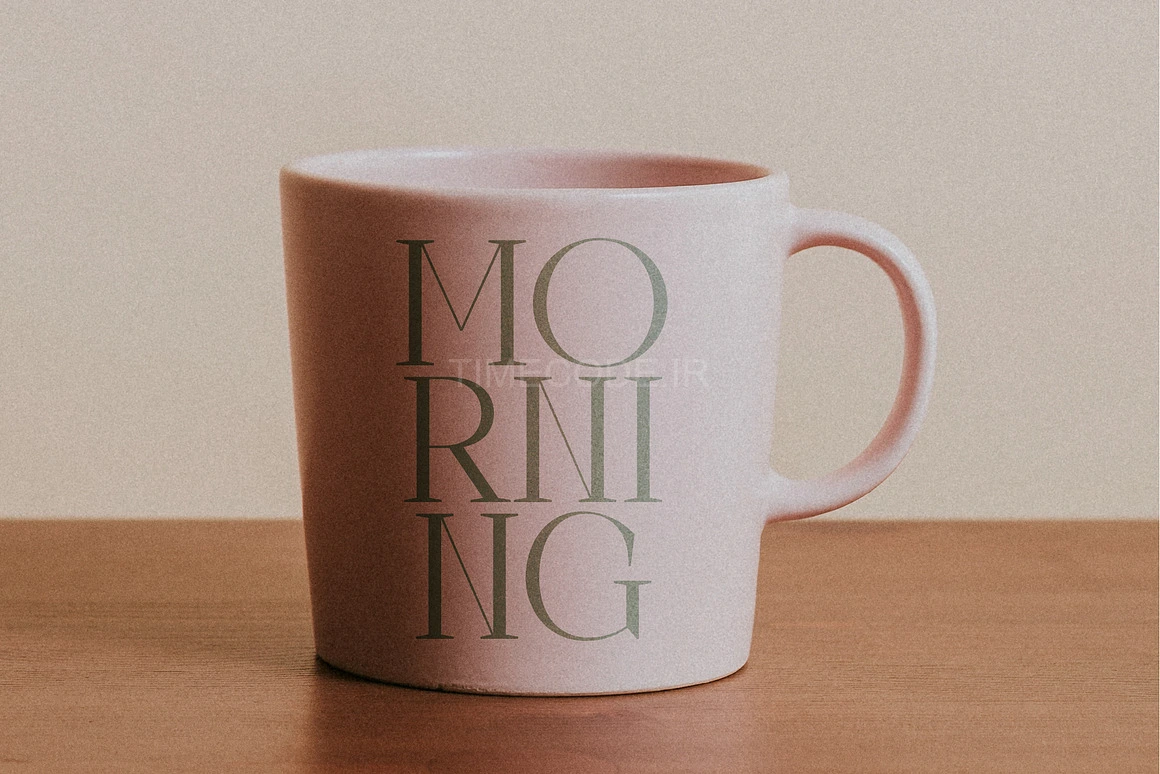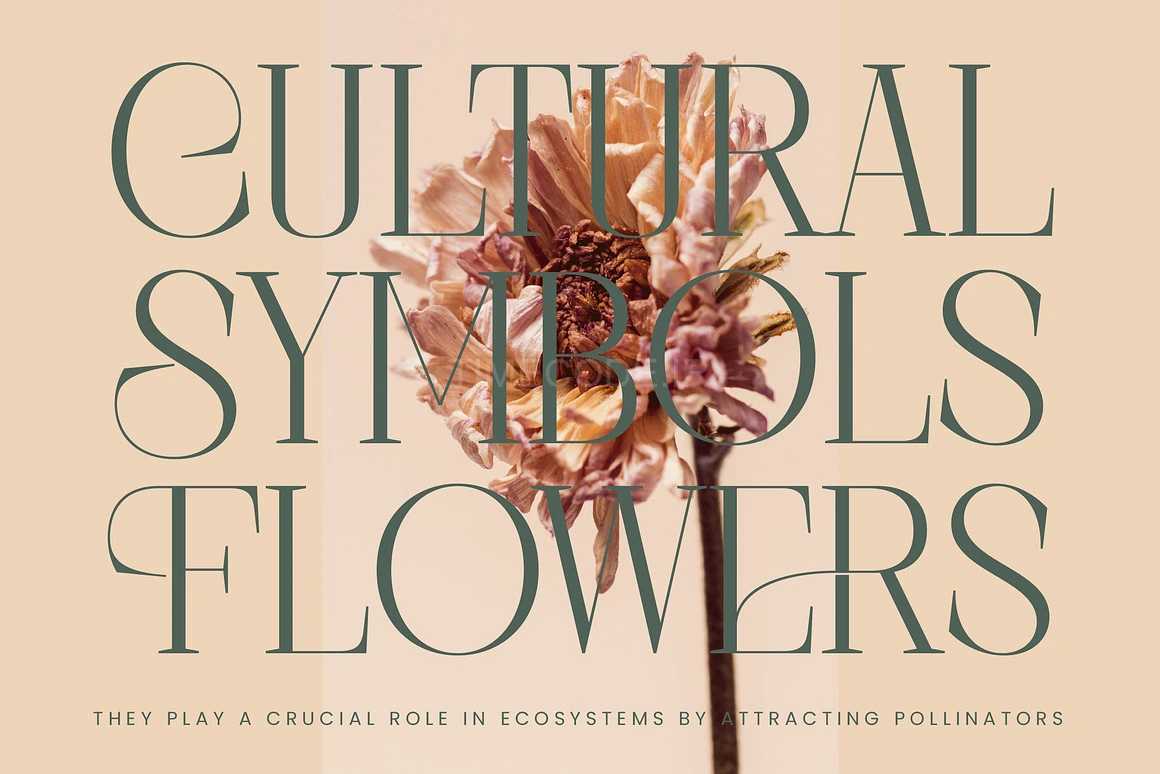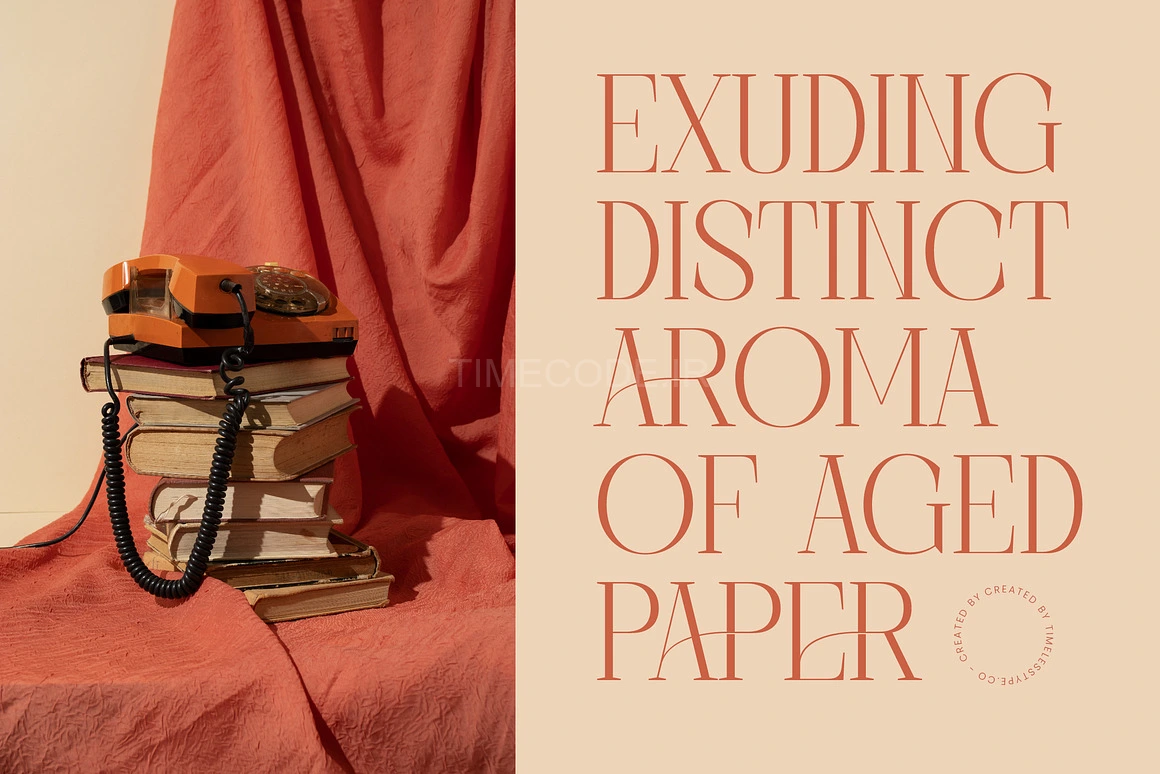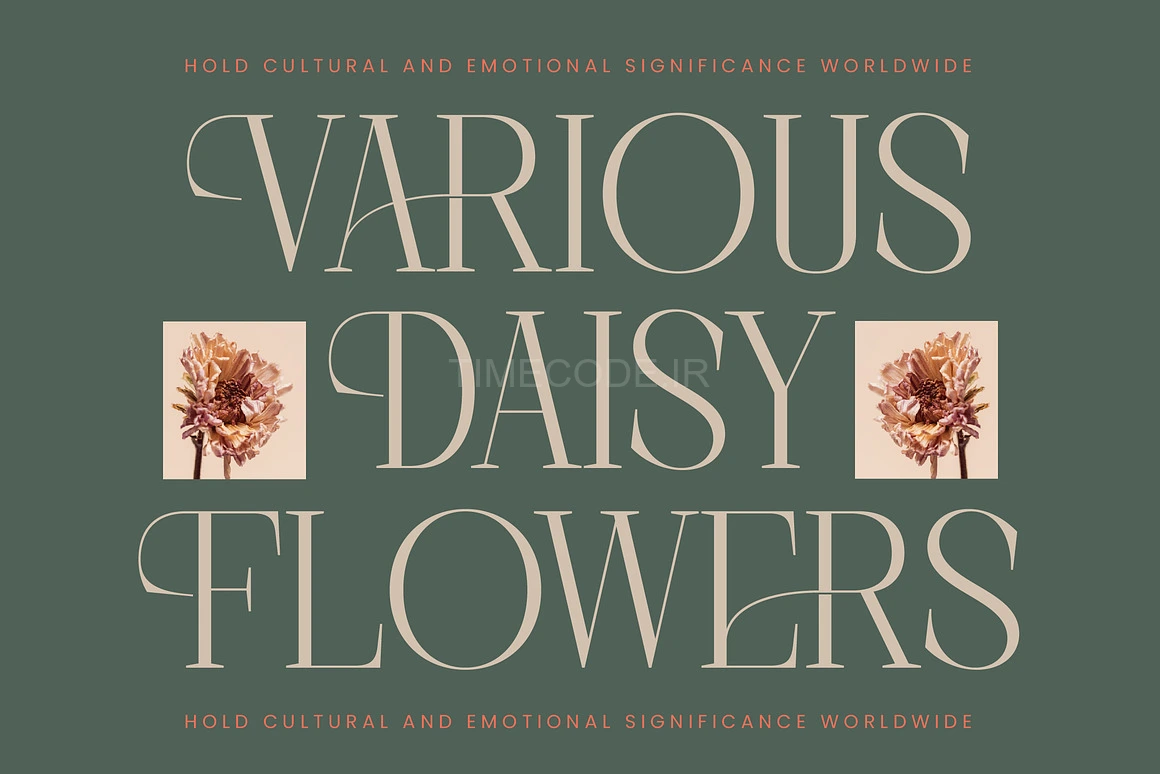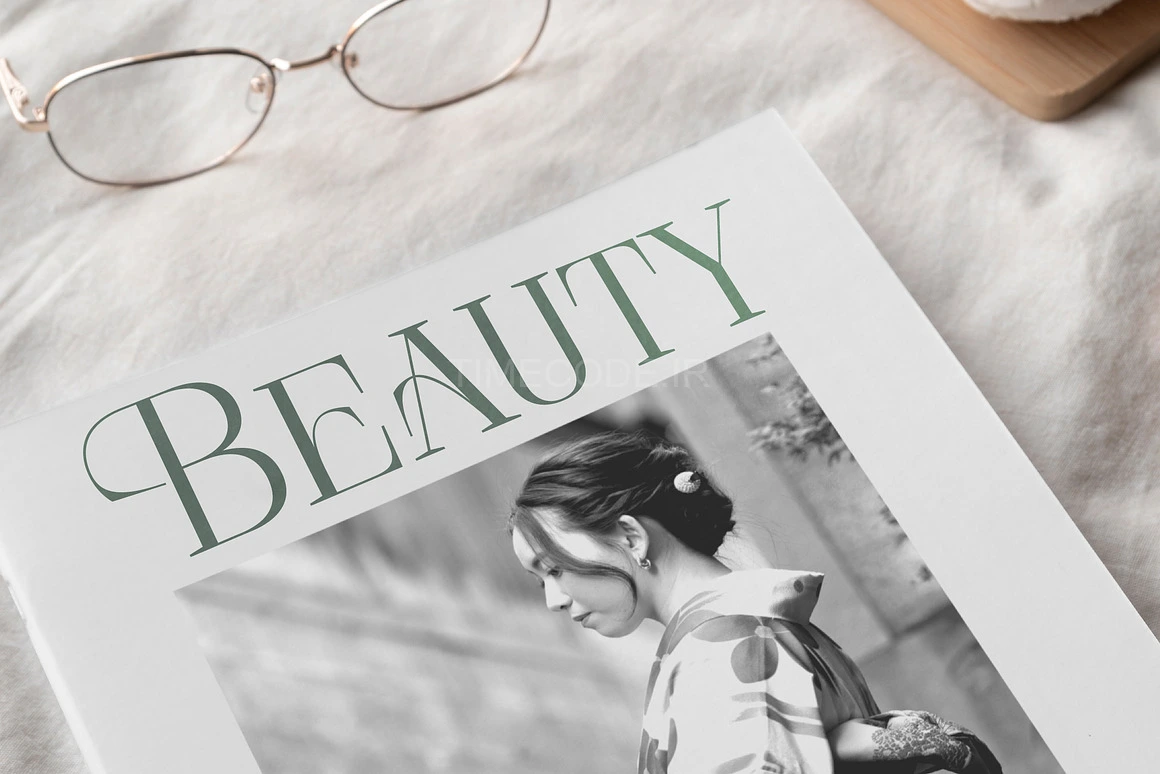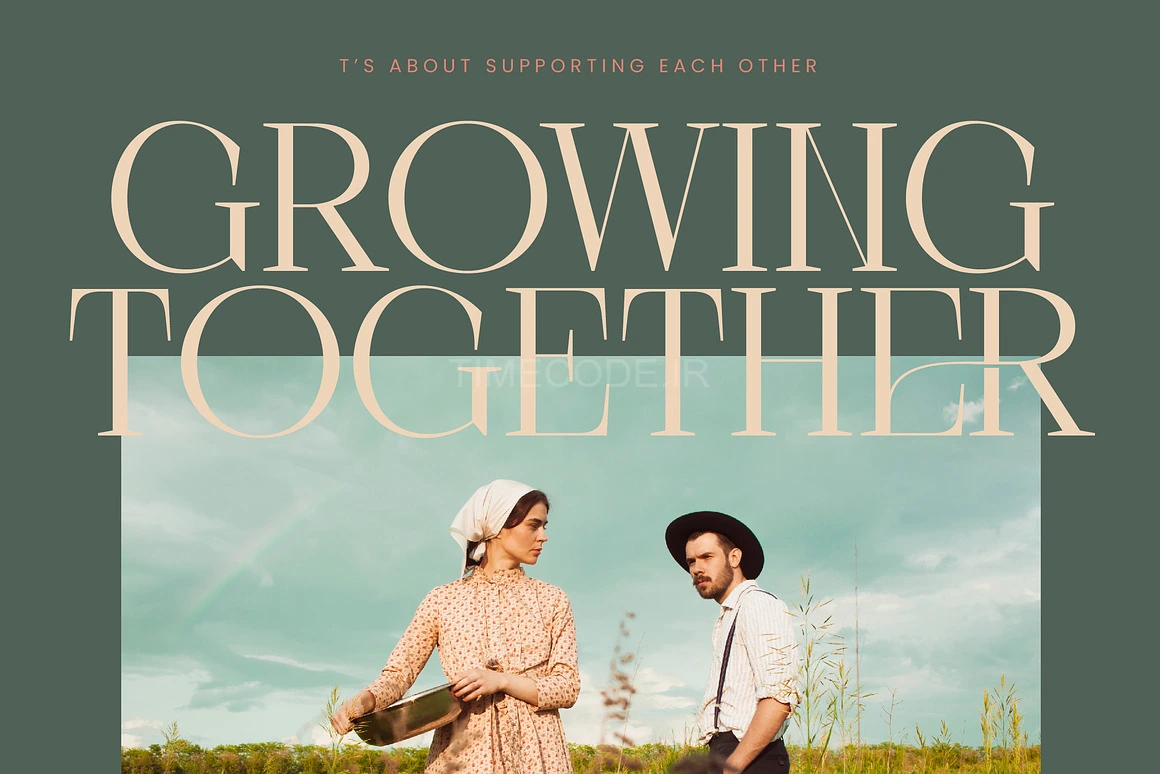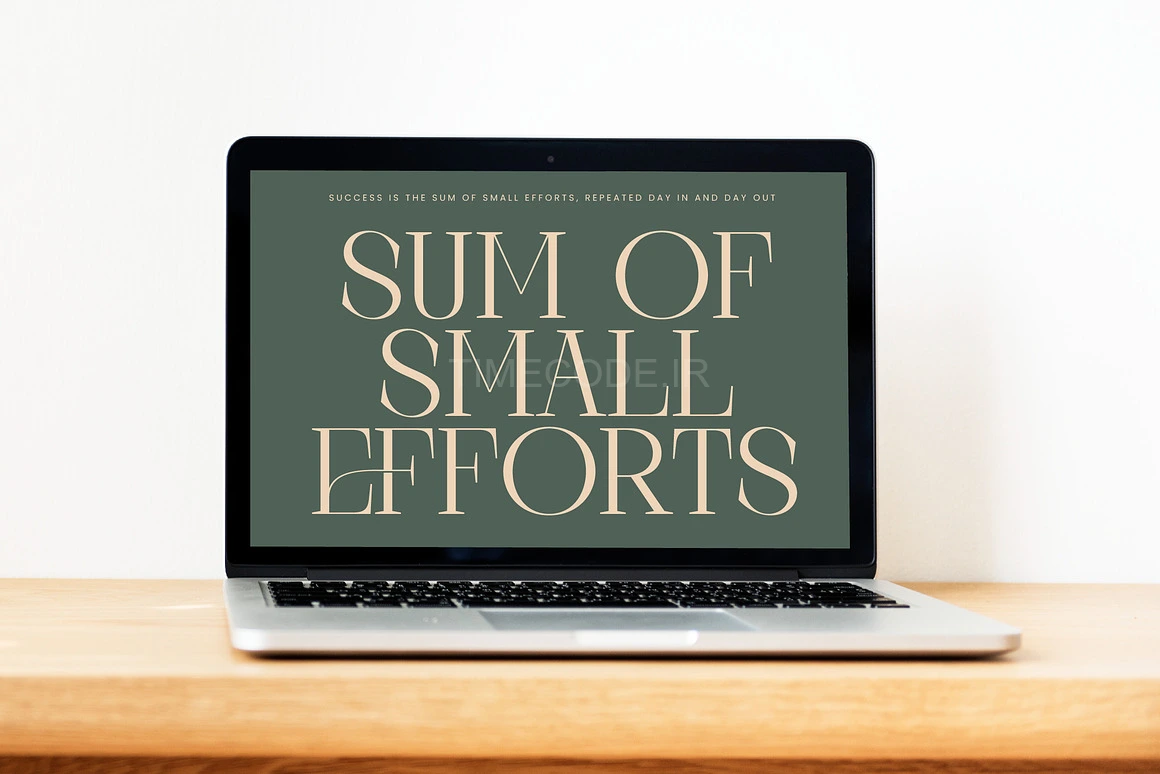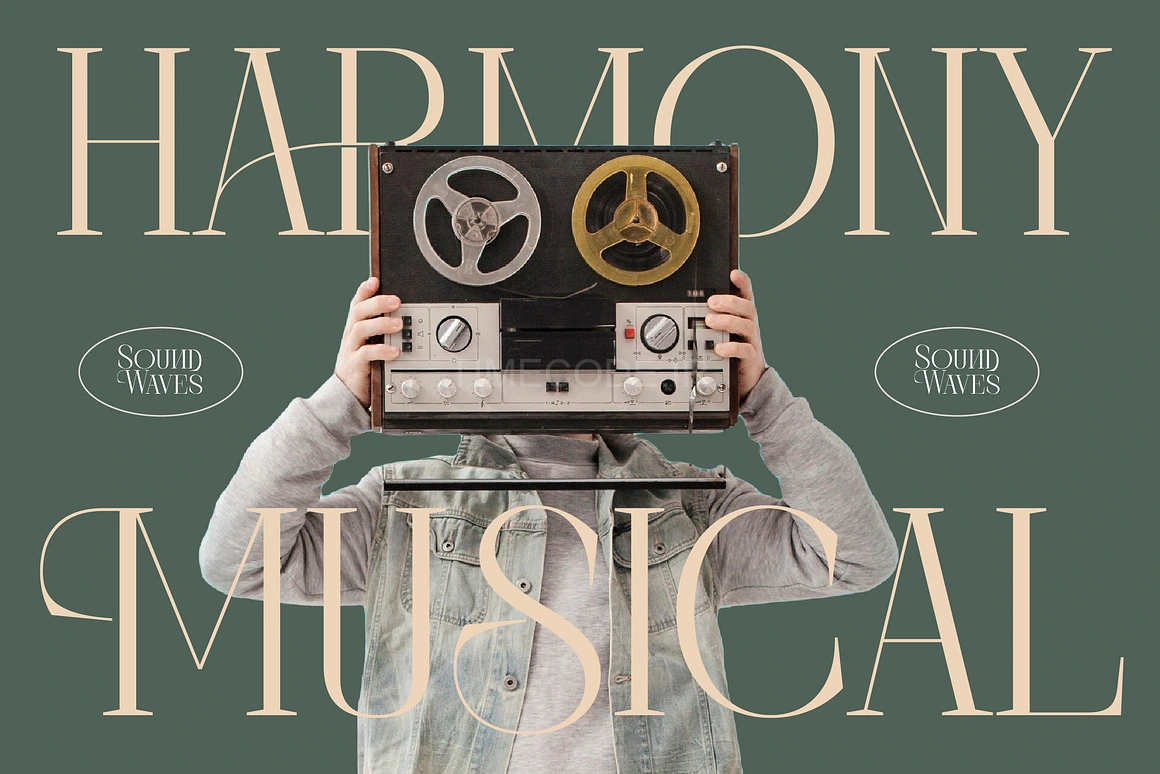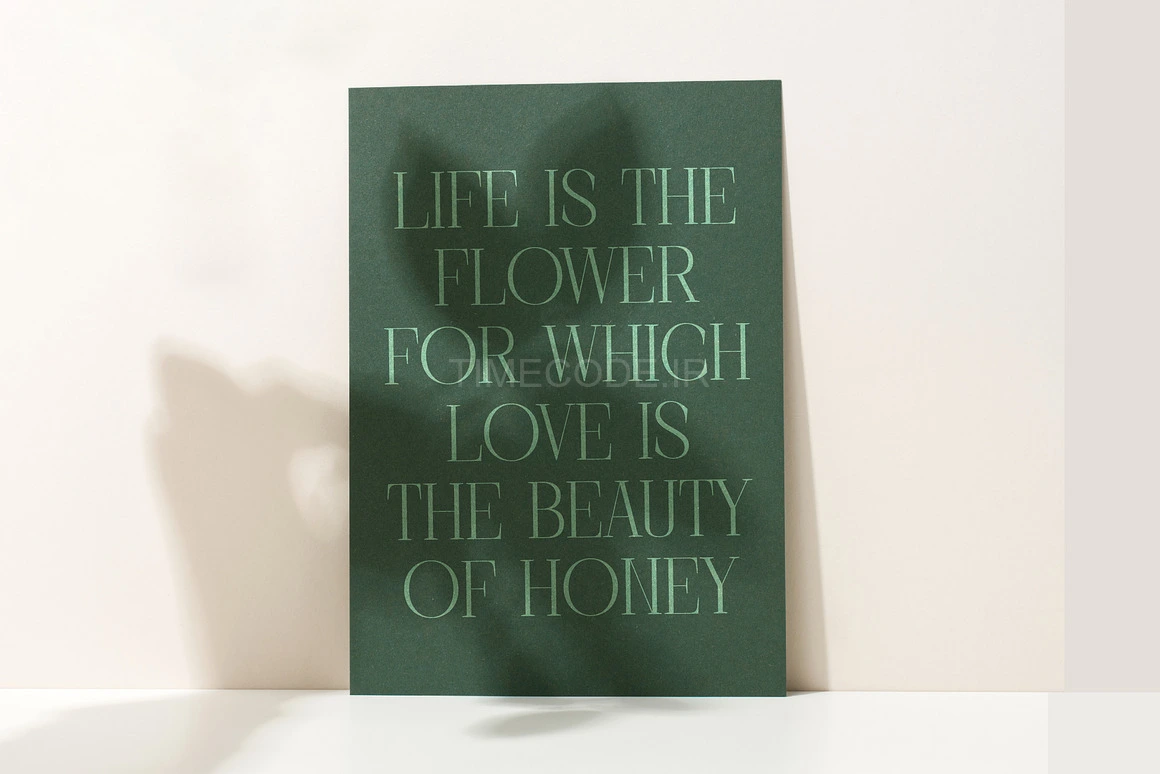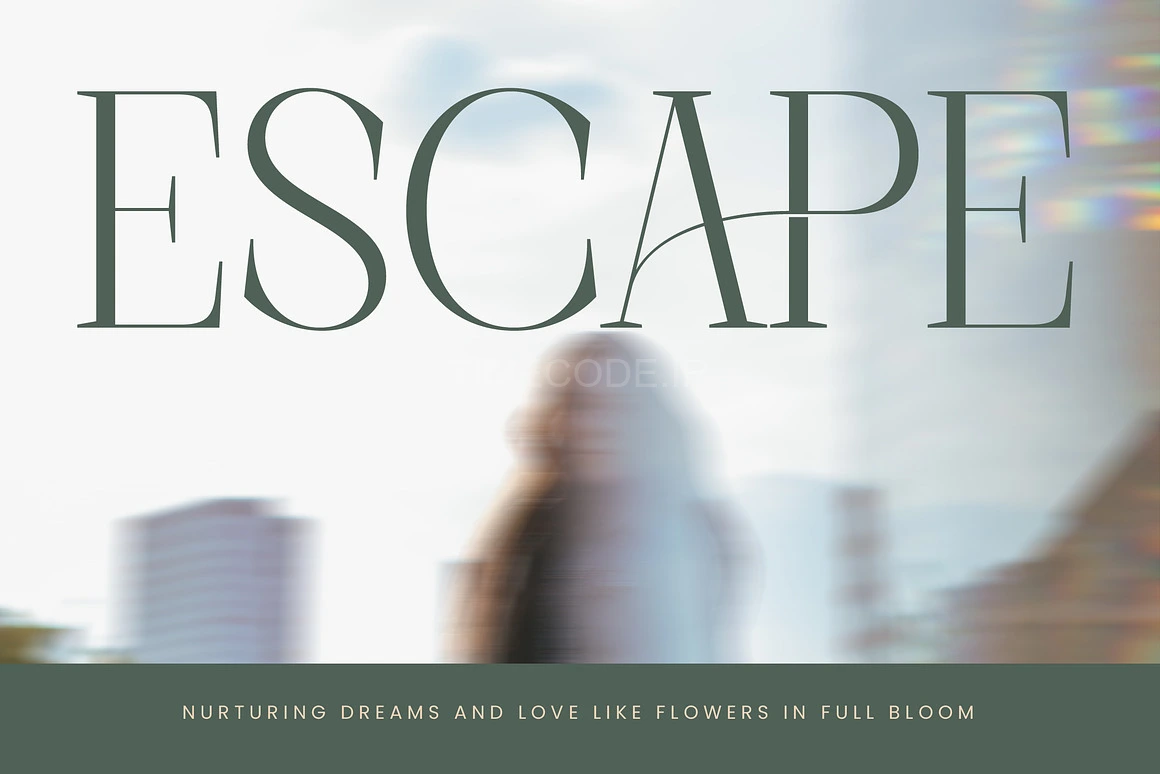
Barely Painter - All Caps Serif Font , from Timelesstype.Co , Suitable for any projects such as: logos, branding projects, homeware designs, product packaging, mugs, quotes, posters, shopping bags, t-shirts, book covers, name card, invitation cards, greeting cards, label, photography, watermark, special events, and all your other luxury and beautiful projects that need a Luxury Serif taste.
Features :
- Ligature 25 Alternate 41
- Uppercase and Lowercase
- Numerals
- Punctuations (OpenType Standard)
- Accents (Multilingual Characters)
- Ligatures and Alternative Style Stylistic Set